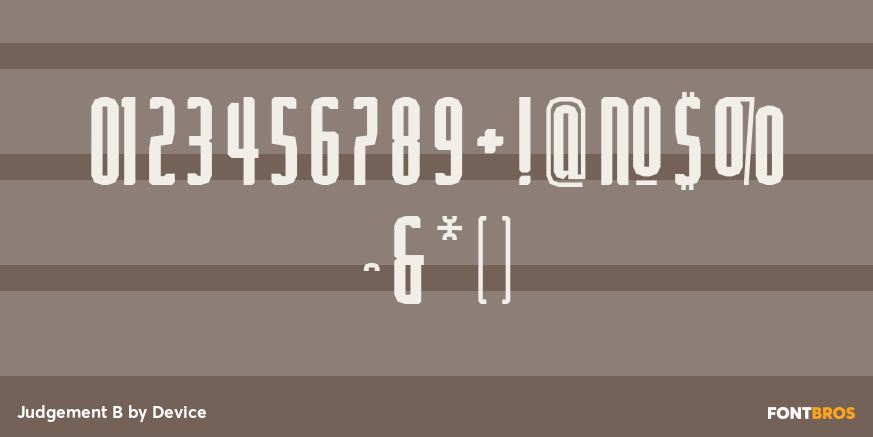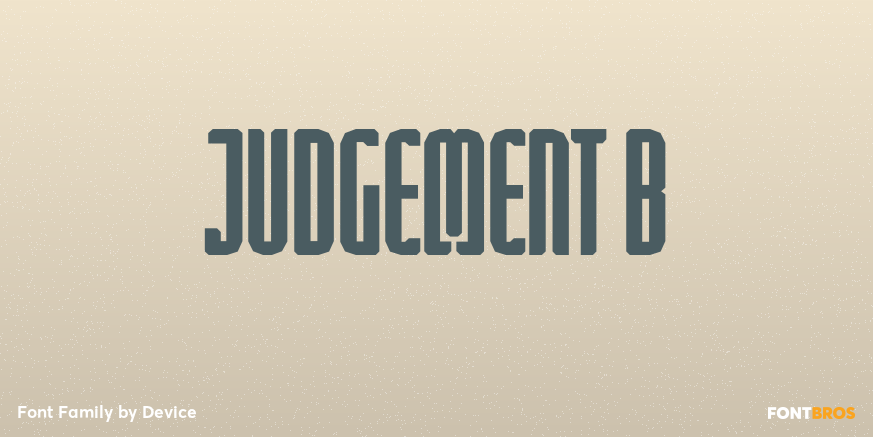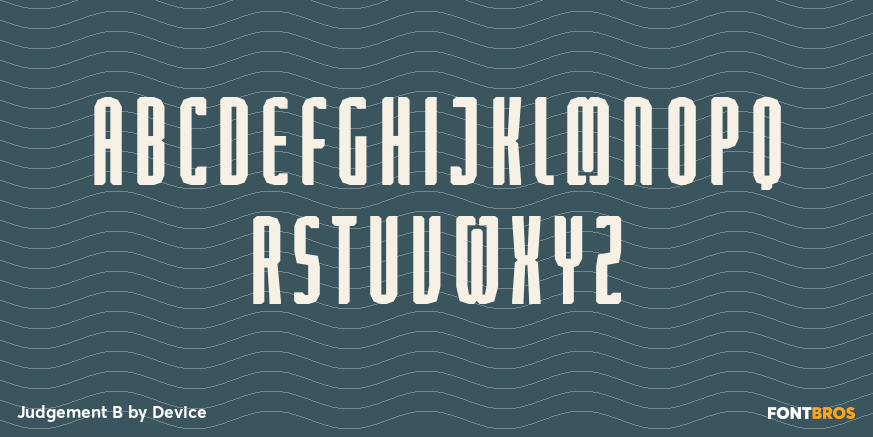
Judgement B
Font Family by Device Fonts
Judgement B is a futuristic sans serif family with a narrow, forceful presence and a distinctly industrial edge. Its compressed and condensed proportions give headlines a tense, high-impact look, while the italic and inline options add extra motion and visual texture for more stylized display work.
This family includes 6 styles: Judgement B Icons, Compressed Regular, Compressed Italic, Compressed Inline, Black Condensed Italic, and Black Condensed. That range makes it a strong fit for posters, branding, packaging, apparel graphics, and other display applications where you want a sharp, engineered voice with a forward-looking feel.